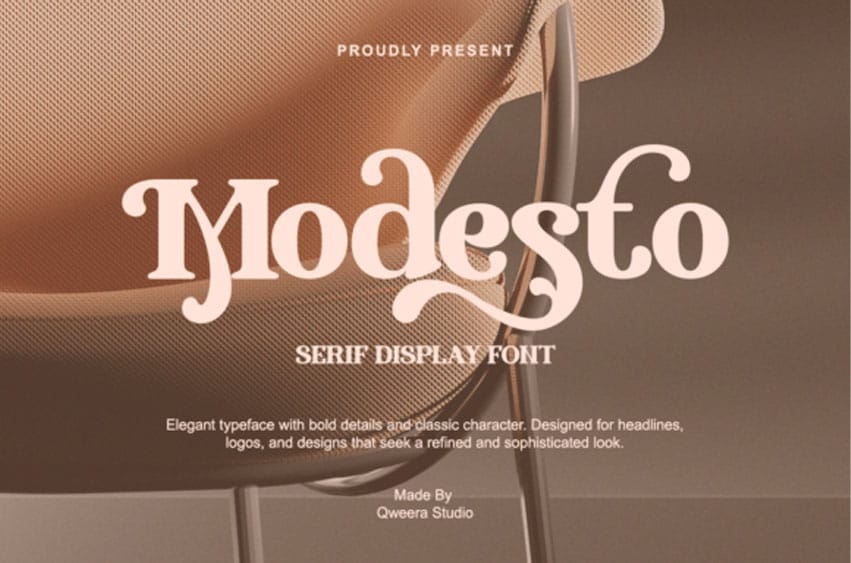
Modesto Font is a refined serif display font that combines bold curves with elegant flourishes. Its high-contrast strokes and artistic serifs evoke timeless sophistication, perfect for editorial headlines, branding, luxury packaging, and modern logo design. Designed with both personality and clarity, Modesto stands out while maintaining legibility, making it ideal for designers who want to make a stylish statement.
Its unique alternates and ligatures offer endless customization for upscale visuals, wedding invitations, magazine layouts, and more. Whether you’re crafting a fashion label or a premium product line, Modesto will elevate your typography with poise and flair.
Use Cases:
Branding, logos, posters, fashion packaging, and editorial design.